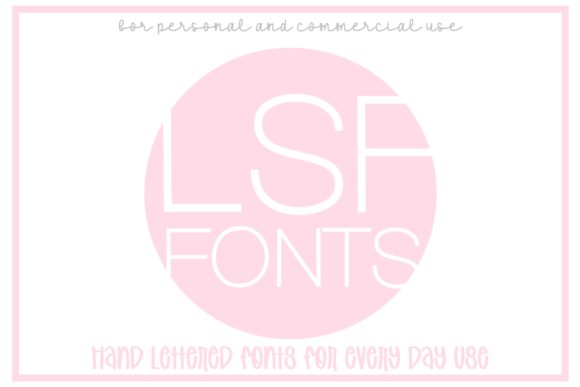
Introduction to LSF Volume 6 Font
Have you ever found yourself stuck in the middle of a creative project, desperately searching for the perfect font to elevate your design? The frustration is real, but what if I told you there’s a solution that could save you from those late-night design sessions? Enter LSF Volume 6 Font, a game-changing collection of 5 stylish font styles that will take your branding, product packaging, and invitations to the next level.
- Unique, modern design makes it perfect for a wide range of creative projects
As a designer, I’m always on the lookout for high-quality design resources that can elevate my creative projects. Recently, I stumbled upon the LSF Volume 6 Font, and I’m excited to share my honest review.
- ✨ The font’s unique style and versatility make it suitable for a wide range of creative projects, from branding to editorial design.
- ⚠️ The font’s bold weight can be a bit overwhelming at times, so it’s essential to use it sparingly.
- ⚠️ The font family is relatively small, so you may need to adjust the font size to achieve the desired effect.
Overall, I’m impressed with the LSF Volume 6 Font. It’s a high-quality design resource that can add a touch of sophistication to any creative project. While it may have some limitations, the benefits far outweigh the drawbacks. If you’re looking for a unique and versatile font, I’d definitely recommend giving the LSF Volume 6 Font a try.
LSF Volume 6 Font is a high-quality design resource that can elevate your creative project. With its unique style and transparent background, this font is perfect for adding a touch of sophistication to your designs.
LSF Volume 6 Font is perfect for a variety of design projects, including:
- Brochures and flyers
- Posters and banners